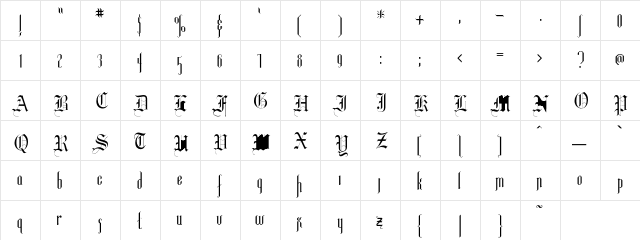
CathedralGrandeur Regular
Design Context for CathedralGrandeur Typeface
CathedralGrandeur is a composed and adaptable typeface that performs quietly and consistently across a wide range of design contexts.
Pro Tip: Use CathedralGrandeur in both headline and body roles to test its range before committing to a single application.